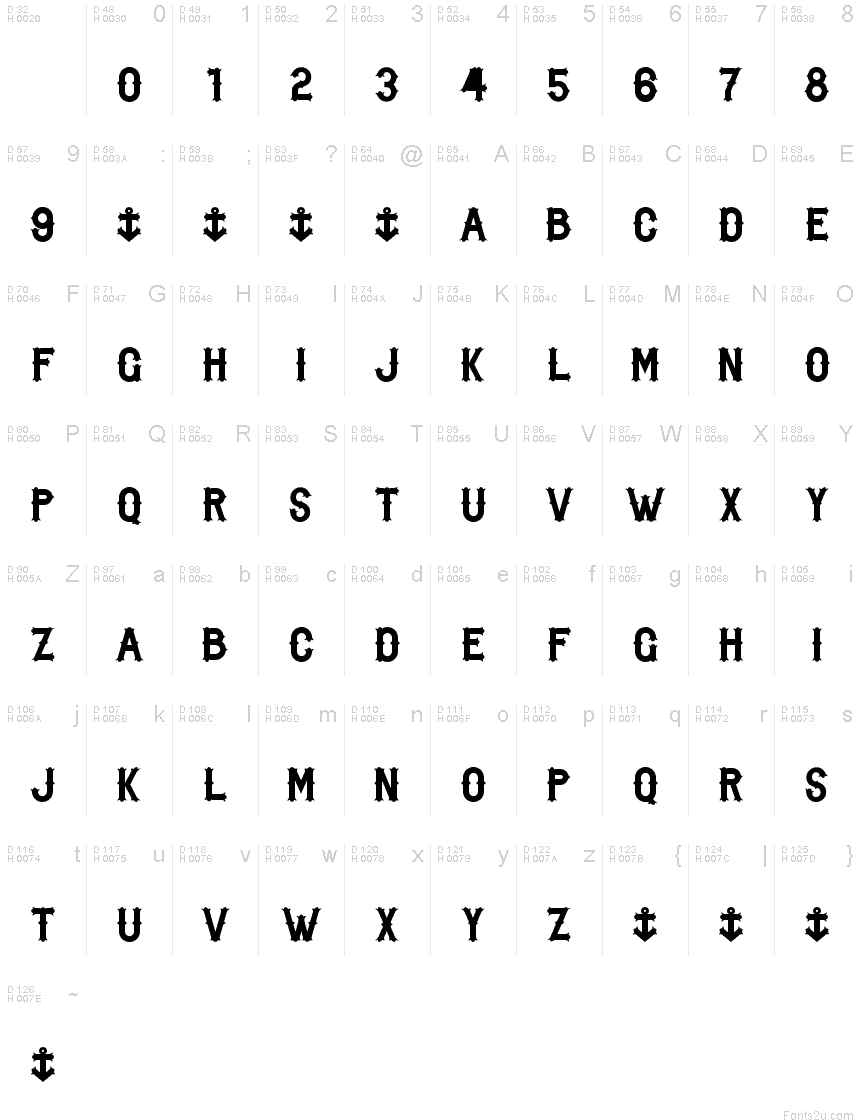
BikerfromHell by Gilang Purnama Jaya is a free heavy serif display font with the swagger of custom motorcycle lettering. Its broad capitals combine dense, rounded strokes with sharp waist cuts and split, horn-like serifs, producing a dark silhouette that feels both theatrical and unruly.
A motorcycle club poster is its most convincing setting, since the exaggerated edges echo pinstriping, embroidered patches, and hand-painted tank graphics. The same aggressive ornament can shape album covers and event merchandise, while horror-comedy packaging and pulp publishing offer other places for its forms to become part of the illustration rather than merely naming the product or story.